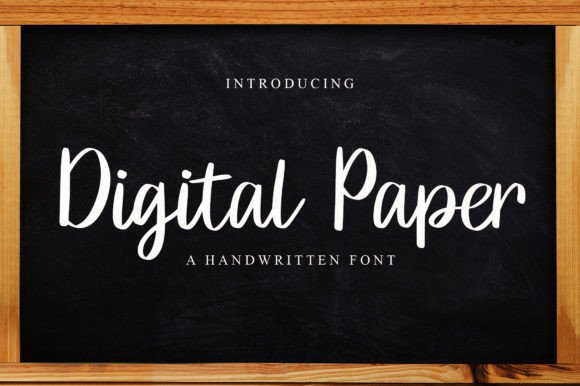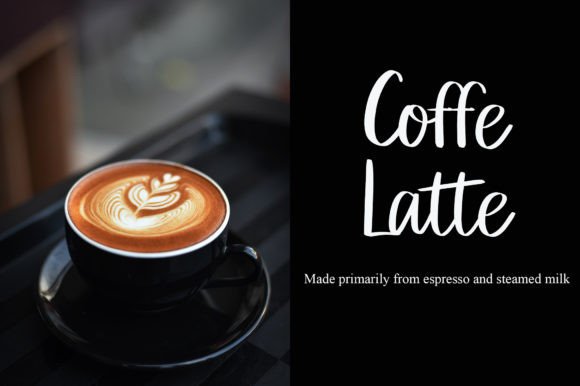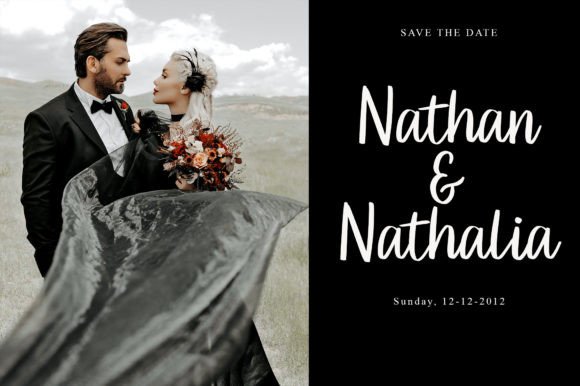
About Digital Paper Font
Introducing Digital Paper, a lovely script font that boasts charming and playful characters, seemingly dancing along the baseline. This font is designed to add a delightful touch to your most creative ideas, making them stand out with a unique and charming flair.
The playful characters of Digital Paper bring a sense of joy and whimsy to your text, making it perfect for a variety of creative projects. Whether you’re working on invitations, branding materials, social media graphics, or any other design endeavor, this font adds a touch of charm that captivates attention.
Digital Paper is more than just a font; it’s a creative companion that elevates your designs with its unique and lively style. The characters appear to dance, creating a dynamic and visually engaging effect that sets your projects apart from the ordinary.
As you incorporate Digital Paper into your designs, you’ll notice how it infuses a sense of liveliness and creativity. The playful nature of the characters enhances the overall aesthetic, making your text come alive with charm and personality.
In summary, Digital Paper is a font designed to make your creative ideas stand out. Download Digital Paper now and explore how it can add a lovely and playful touch to your projects. With its charming and dancing characters, Digital Paper is ready to bring a unique flair to your design endeavors.